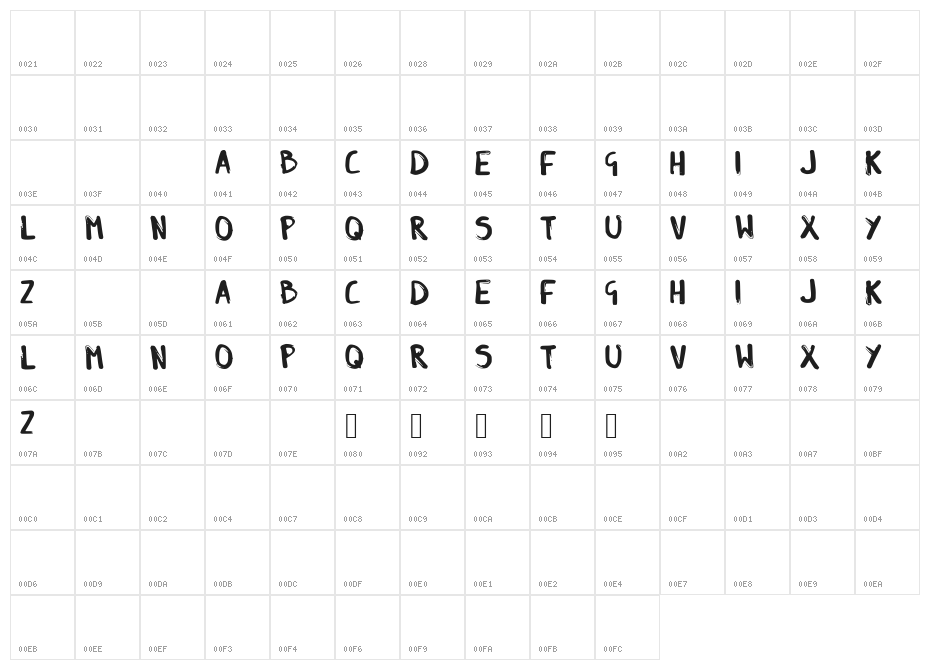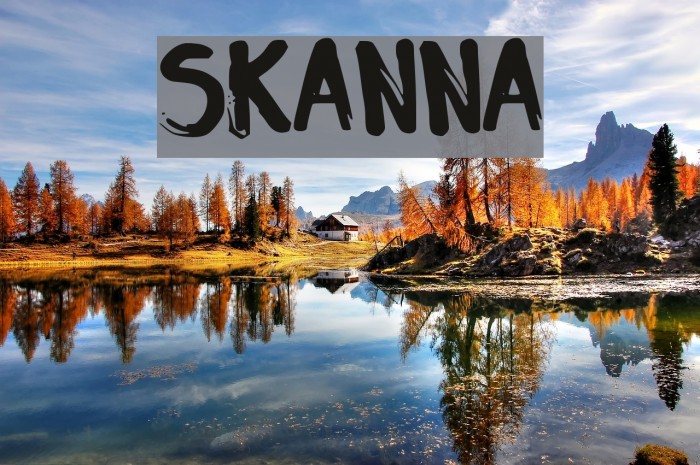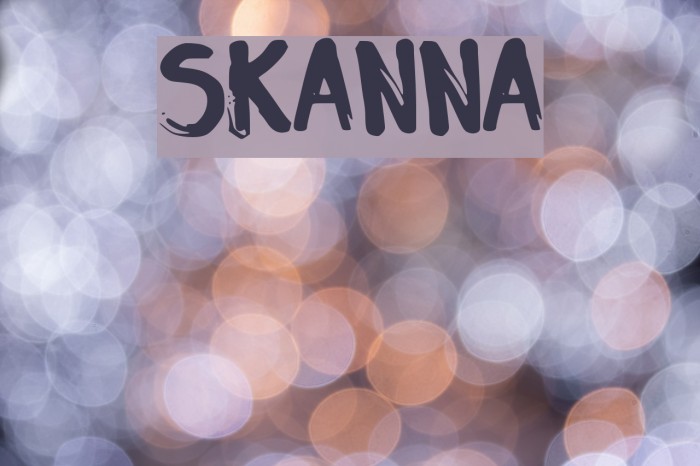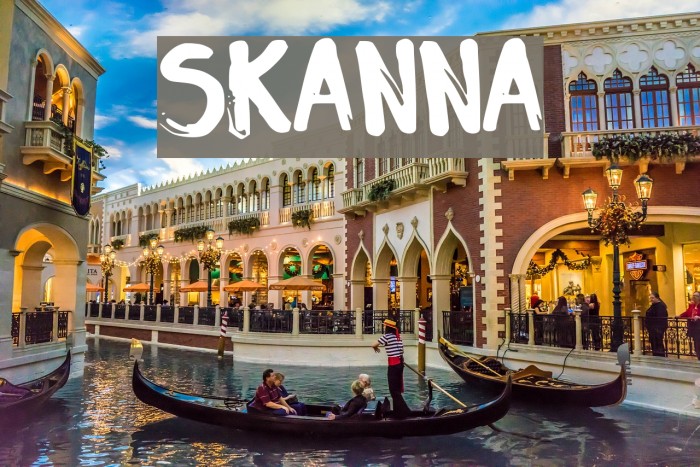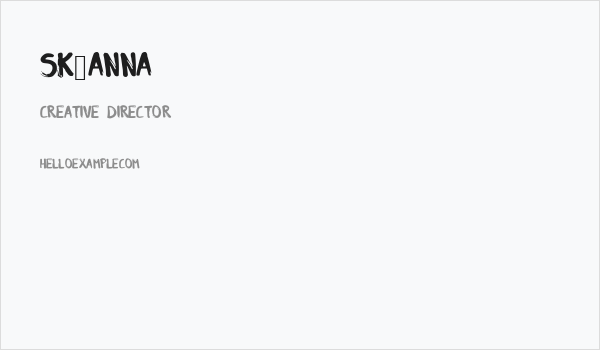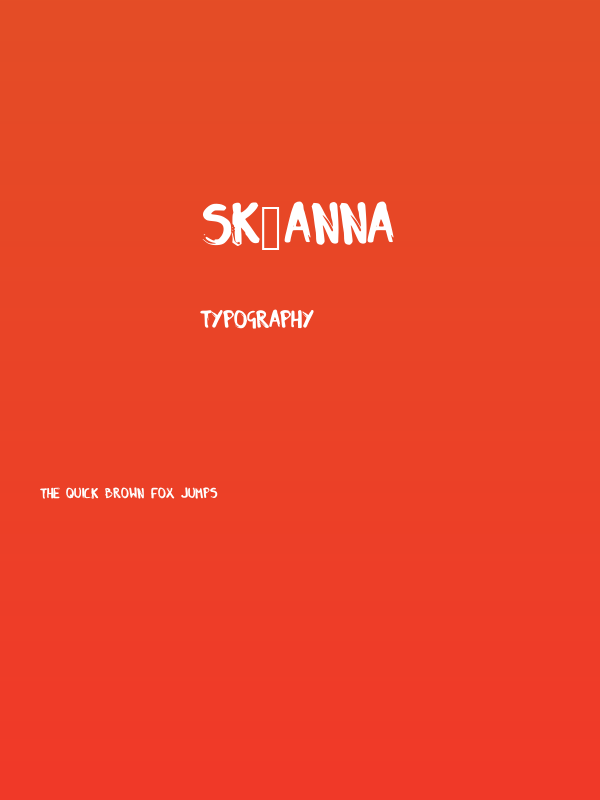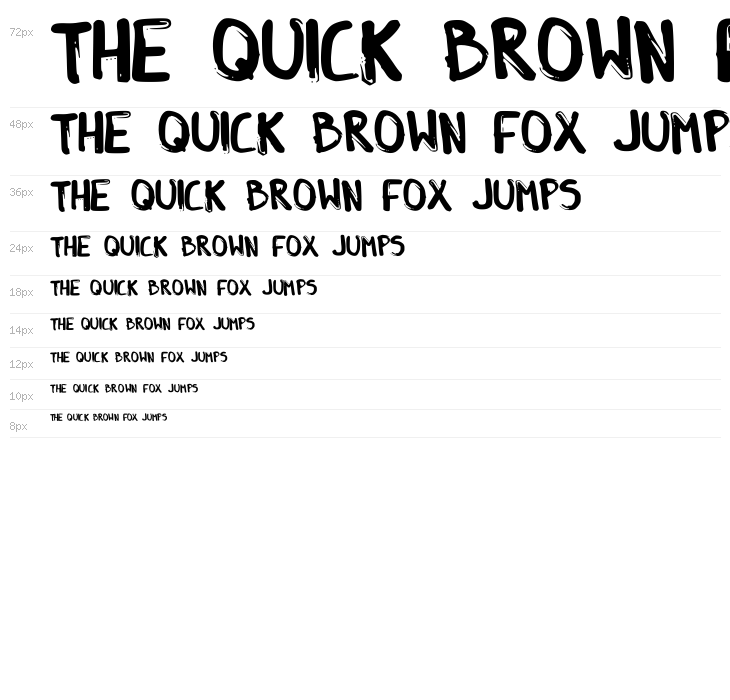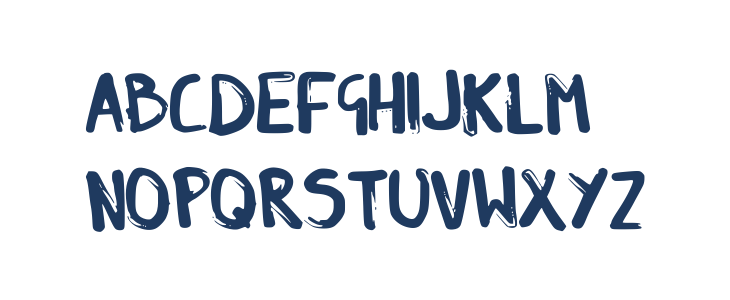
SK_ANNA Font
SK_ANNA Description
This font features a bold and playful style with a hand-drawn appearance, characterized by its thick strokes and slightly irregular shapes. The letters have a casual and informal feel, with a touch of whimsy that makes them stand out. The uppercase and lowercase letters maintain a consistent weight, providing a cohesive look across the alphabet. The numbers and special characters follow the same design principles, ensuring uniformity throughout. The font's unique charm is enhanced by its slightly uneven edges, giving it a dynamic and lively personality.
| Proposed Projects | Ideal for children's books, playful branding, greeting cards, and creative posters. |